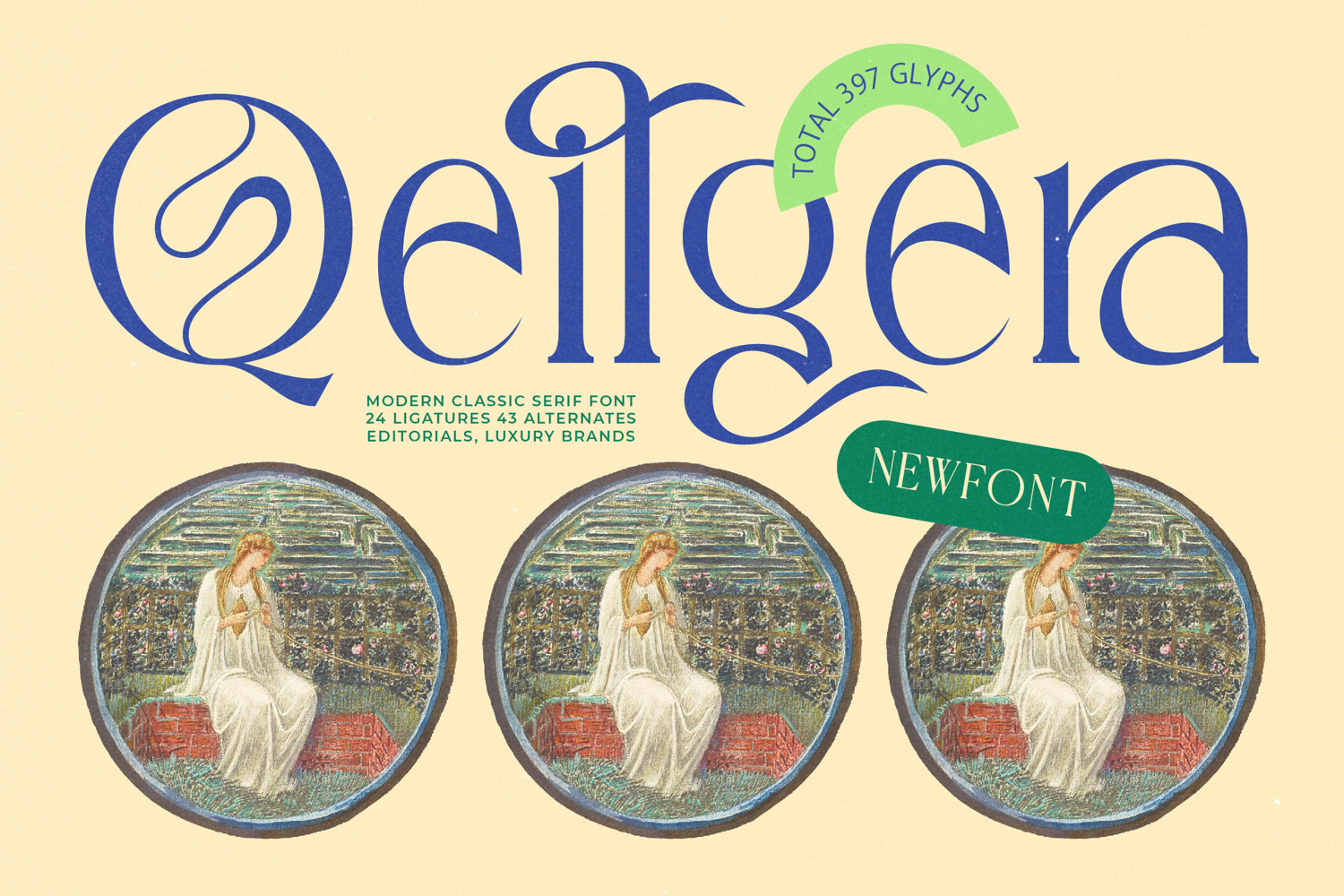
Qeilgera - Modern Classic Serif Font
Unlock the power of sophisticated visual identity with Qeilgera - Modern Classic Serif Font. This stunning display typeface expertly blends traditional serif elegance with modern, expressive curves and swashes. Featuring striking high-contrast strokes and finely honed terminals, Qeilgera - Modern Classic Serif Font commands attention, instantly imbuing any project with a sense of historic grandeur and effortless style. It serves as the ultimate statement piece for design that demands immediate impact.
Elevate your typography to an art form using the comprehensive OpenType features embedded in this typeface. With a total of 397 glyphs, including 24 refined ligatures and 43 stylistic alternates, Qeilgera - Modern Classic Serif Font provides unmatched flexibility for bespoke design. These features enable designers to craft truly unique logos and stylized headlines that feel custom-drawn, ensuring your final output is both memorable and distinctive across all media.
Achieve global recognition without compromising style. Designed for international appeal and flawless execution, Qeilgera - Modern Classic Serif Font supports various languages and character sets. With its extensive multilingual support, Qeilgera - Modern Classic Serif Font adapts seamlessly across global markets, making it incredibly versatile for international projects and expansive brand development. This adaptability guarantees consistent typographic quality wherever your business takes you.
Define true luxury and timelessness across your professional portfolio. Qeilgera - Modern Classic Serif Font is the perfect choice for high-end applications such as luxury branding, exclusive editorial headers, high-fashion packaging, wedding invitations, and impactful advertising campaigns. Invest in this powerful font to ensure your brand communication consistently projects premium quality and undeniable sophistication, making it an indispensable asset for any serious designer.